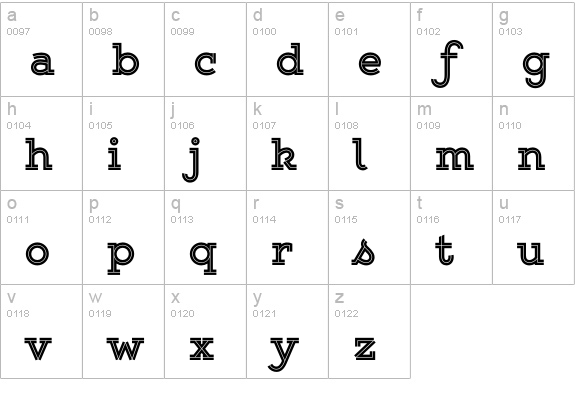
Gist Upright Extrabold Demo Font Details
Gist Upright Extrabold Demo is an extra-heavy, attention-grabbing variant in the Gist typeface family \xE2\x80\x94 well suited to high-impact headlines, posters, and bold branding.
Introducing Gist Upright Extrabold Demo font, a captivating and dynamic typeface that effortlessly commands attention. With its bold and assertive character, this font is perfect for making a bold statement in your design projects. Gist Upright Extrabold Demo font exudes confidence and strength, captivating the viewer with its powerful presence. Whether you're designing a poster, logo, or any other creative project, this font will ensure that your message is delivered with impact and style. The clean lines and distinct letterforms of Gist Upright Extrabold Demo font make it highly versatile, allowing it to be used in a wide range of design applications. Its strong and bold nature adds a touch of modernity and sophistication to any project, making it suitable for both digital and print designs. One of the best things about Gist Upright Extrabold Demo font is that it is available for free! You can download this font at FontsMarket.com, a reputable website for all your font needs. By offering this font for free, the creators have made it accessible to a wide range of designers, ensuring that everyone can benefit from its captivating and powerful aesthetic. So, whether you're a graphic designer, a typographer, or simply someone who appreciates beautiful fonts, Gist Upright Extrabold Demo font is a must-have in your collection. Its bold, confident, and striking design will elevate your projects to new heights, leaving a lasting impression on your audience. Don't miss out on the opportunity to download this incredible font for free at FontsMarket.com and enhance your designs with its commanding presence.